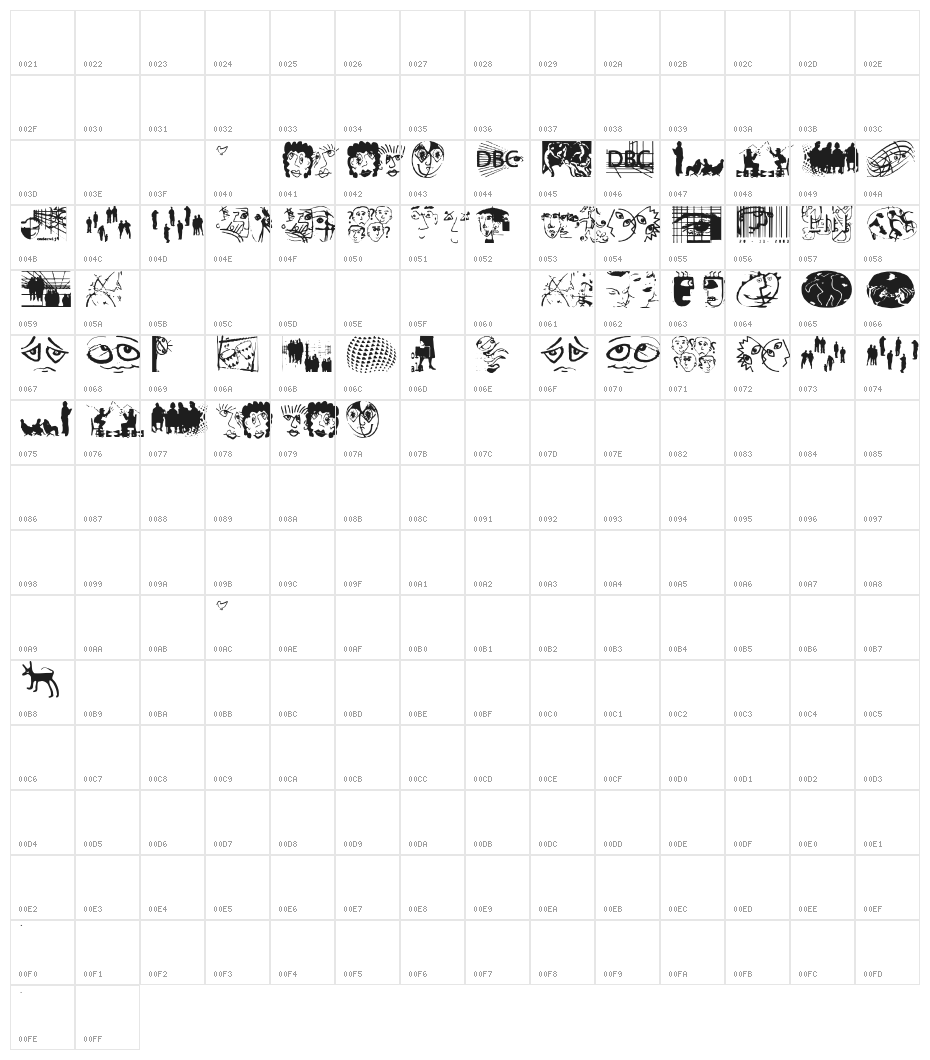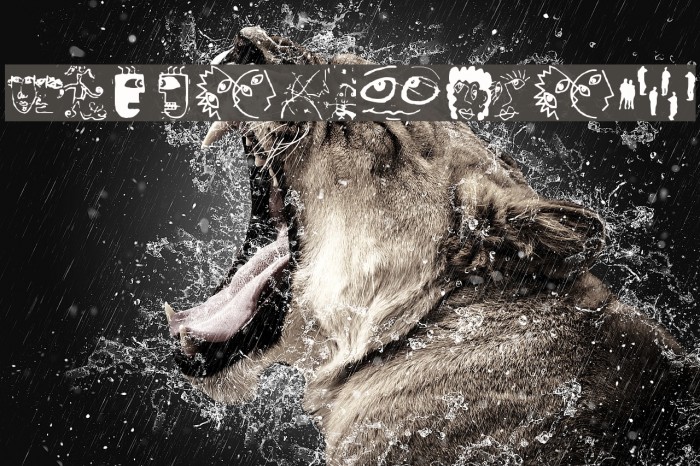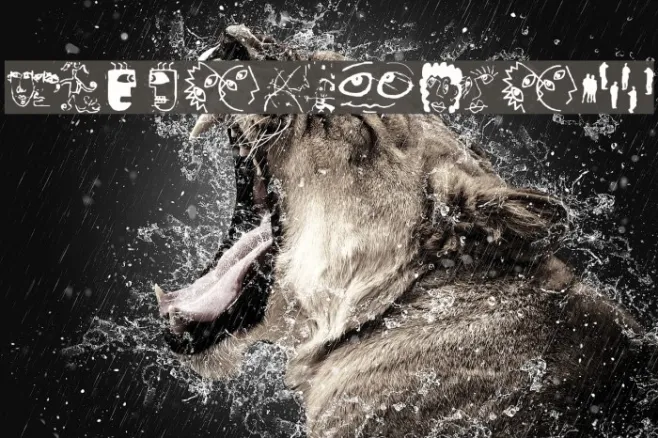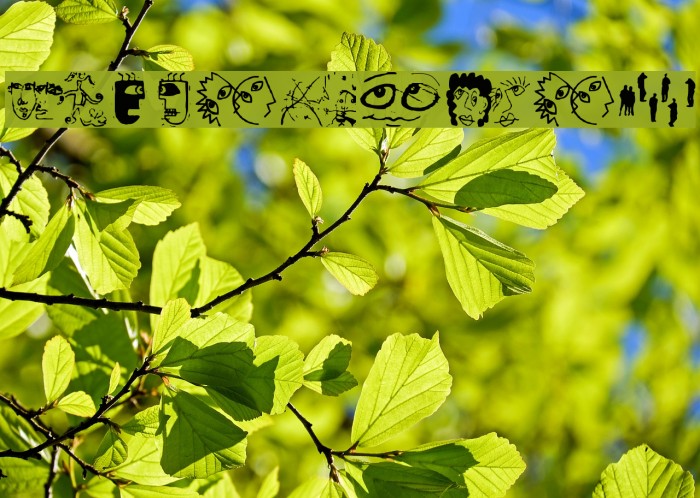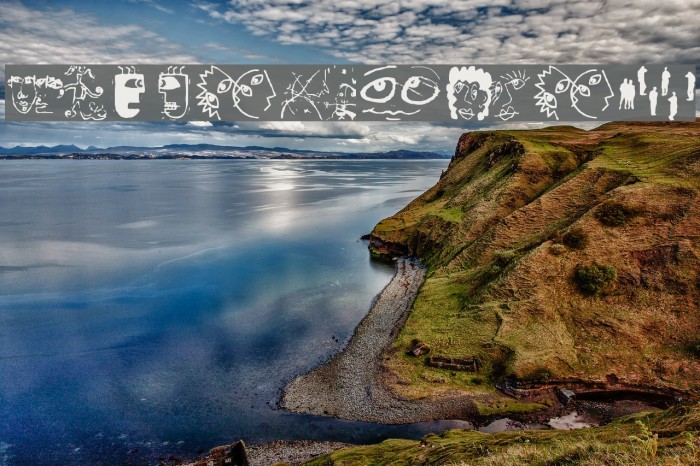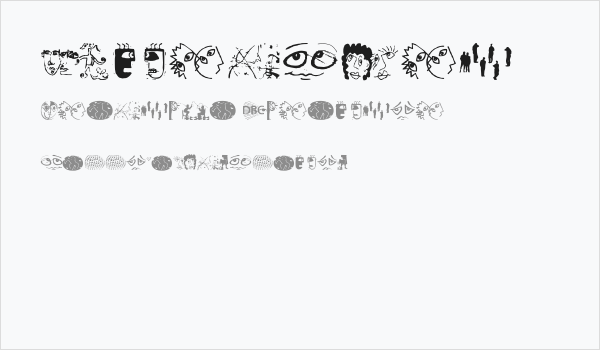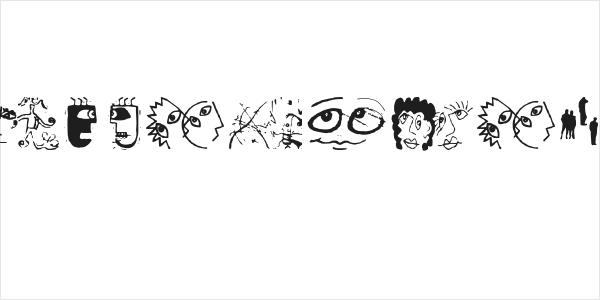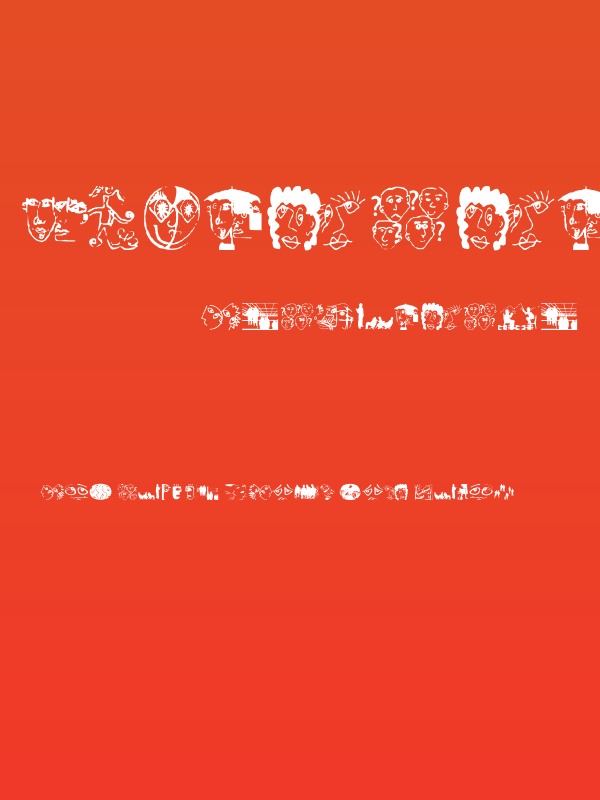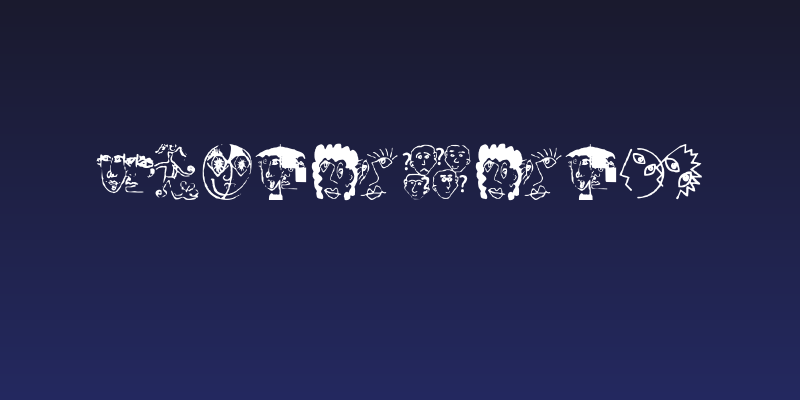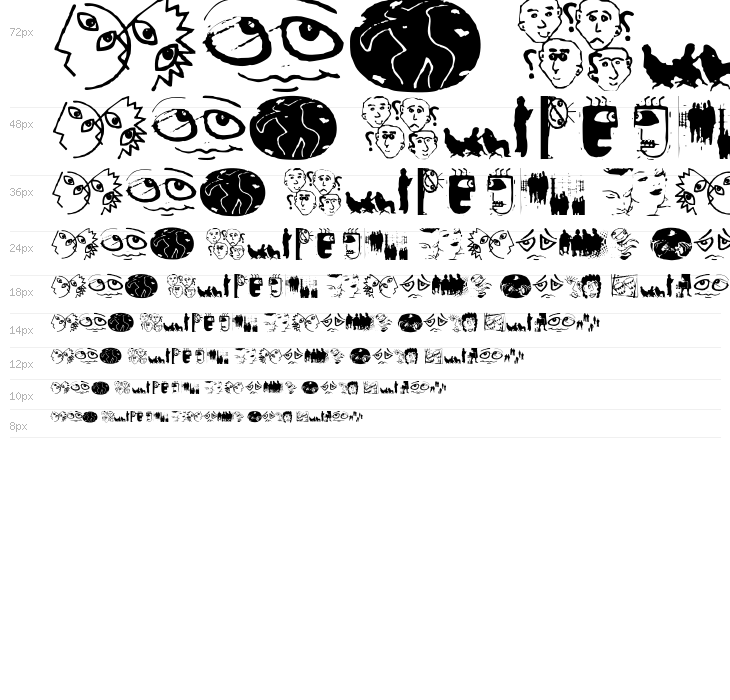
ScrapArt Font
A highly decorative and illustrative dingbat font featuring a variety of abstract faces, human silhouettes, and artistic scenes. Each character is a unique, detailed drawing rather than a traditional letterform, with a hand-drawn, sketch-like quality and playful, expressive imagery.
| Overall Style | Decorative, Artistic, Whimsical |
| Use Case | Logos, Posters, Decorative elements, Art projects |
| Proposed Projects | Posters, album covers, art projects, zines, creative branding, event flyers, scrapbooking, and decorative headings. |